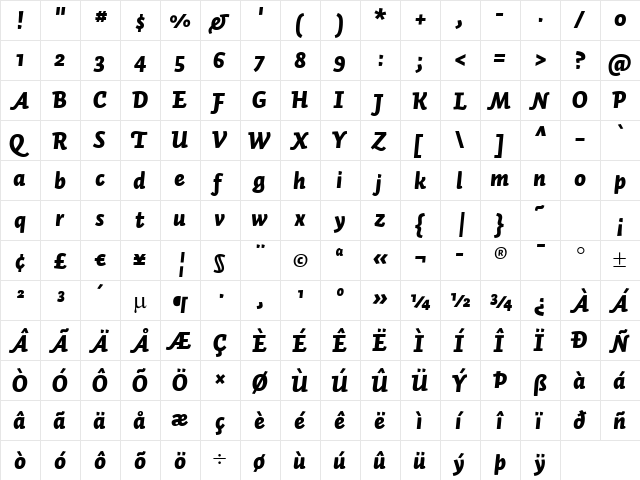
Auto 2 Black Italic
Design Context for Auto 2 Typeface
Auto 2 is a composed and adaptable typeface that performs quietly and consistently across a wide range of design contexts. Its italic angle brings a sense of urgency and motion to the letterforms.
Pro Tip: Use Auto 2 for emphasis, pull quotes, and subheadings where its slanted energy can add rhythm to the layout.